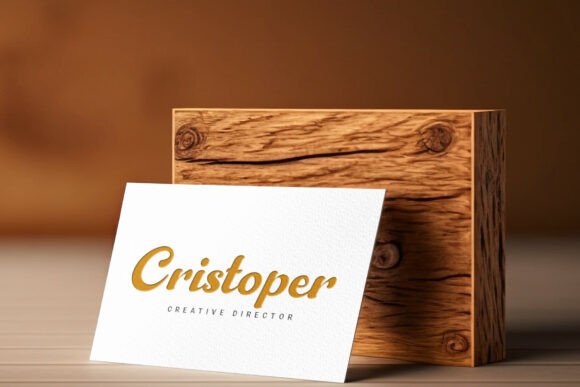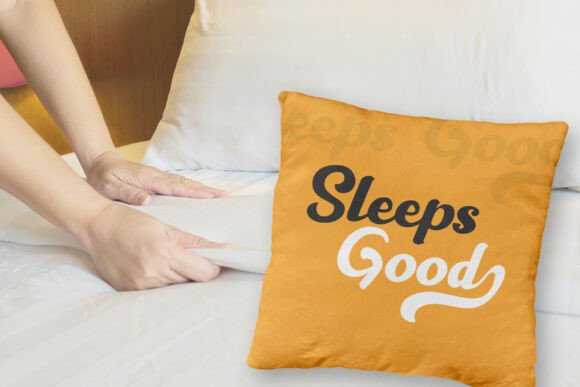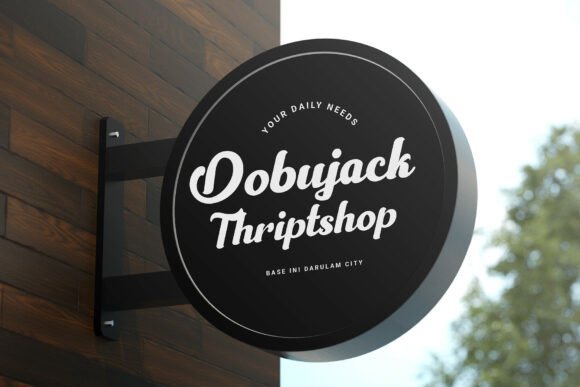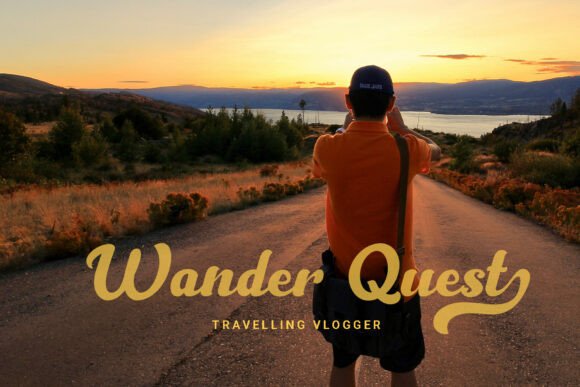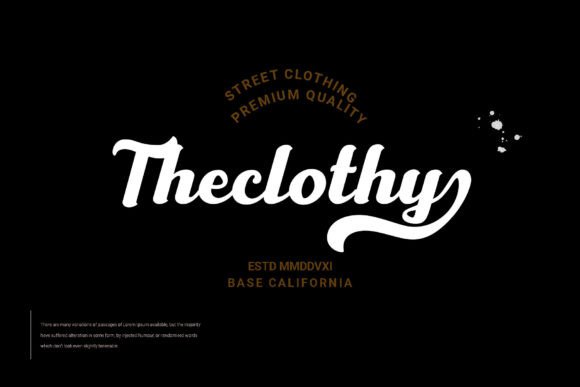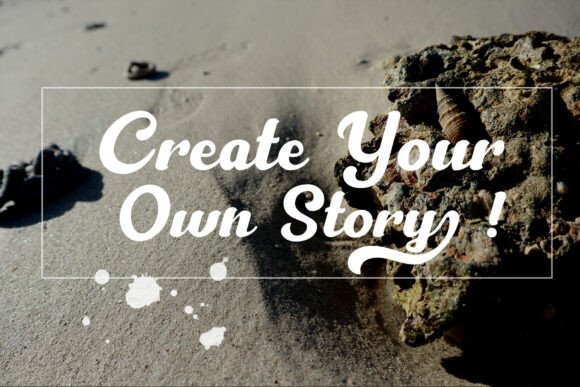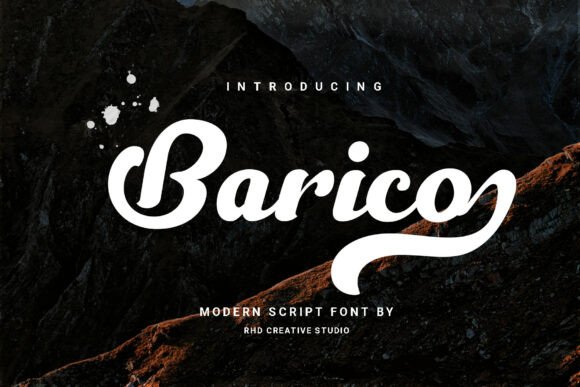
Introducing Barico Font: A Timeless Handwritten Delight
Are you on the hunt for a font that adds a touch of elegance and whimsy to your designs? Look no further than Barico Font, a lovely and timeless handwritten font that’s perfect for creating eye-catching logos, branding, and quotes. With its unique and beautiful touch, Barico Font is sure to make your design come alive!
The Characteristics of Barico Font
Barico Font boasts a distinctive handwritten style that’s both classic and modern. Every letter has been carefully crafted to showcase a unique and beautiful touch, making it perfect for designs that require a personal and human feel. The font’s flowing lines and curves create a sense of movement and fluidity, making it ideal for use in a variety of design applications.
Why Choose Barico Font?
So, what sets Barico Font apart from other fonts on the market? Here are just a few reasons why designers and crafters love working with this lovely font:
- Unique and Beautiful Touch: As mentioned earlier, every letter in Barico Font has a unique and beautiful touch that adds a touch of personality to your designs.
- Elegant and Whimsical: Barico Font strikes the perfect balance between elegance and whimsy, making it suitable for a wide range of design applications, from logos and branding to quotes and social media graphics.
- Timeless Appeal: Unlike trendy fonts that quickly go out of style, Barico Font has a timeless appeal that ensures your designs will remain fresh and relevant for years to come.
- Versatile: Barico Font is incredibly versatile and can be used in a variety of design applications, including logos, branding, quotes, social media graphics, and more.
Using Barico Font in Your Designs
So, how can you use Barico Font in your designs? Here are a few ideas to get you started:
- Logos and Branding: Use Barico Font to create eye-catching logos and branding materials that showcase your unique personality and style.
- Quotes and Social Media Graphics: Add a touch of elegance and whimsy to your quotes and social media graphics with Barico Font.
- Invitations and Stationery: Use Barico Font to create beautiful invitations, stationery, and other paper goods that showcase your personal style.
- Packaging and Product Design: Add a touch of personality to your packaging and product design with Barico Font.
Tips for Getting the Most Out of Barico Font
To get the most out of Barico Font, here are a few tips to keep in mind:
- Pair with Other Fonts: Barico Font pairs beautifully with other fonts, so don’t be afraid to get creative and try out different combinations.
- Use in Combination with Images: Use Barico Font in combination with images to add a touch of personality and whimsy to your designs.
| Font Name | Barico Font |
| Author | RHD Creative Studio |
In conclusion, Barico Font is a lovely and timeless handwritten font that’s perfect for designers and crafters looking to add a touch of elegance and whimsy to their designs. With its unique and beautiful touch, Barico Font is sure to make your design come alive! Whether you’re creating logos and branding, quotes and social media graphics, or invitations and stationery, Barico Font is the perfect choice.